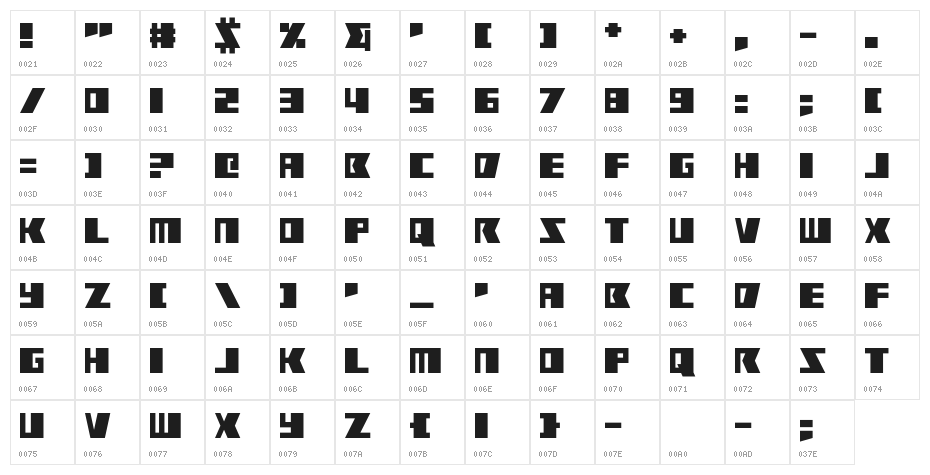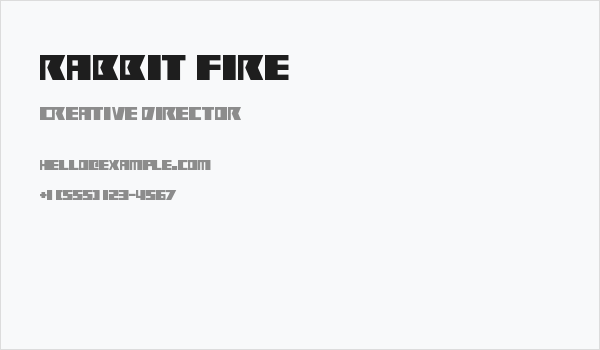
Rabbit Fire Font
Rabbit Fire Description
This font features a bold, geometric design with sharp angles and a blocky appearance. The uppercase and lowercase letters maintain a consistent width, creating a uniform look across the typeface. The characters are designed with a futuristic and edgy style, making them stand out with their unique, angular cuts. The numbers and special characters follow the same design principles, ensuring a cohesive appearance throughout. This font is highly distinctive and eye-catching, suitable for projects that require a strong visual impact.